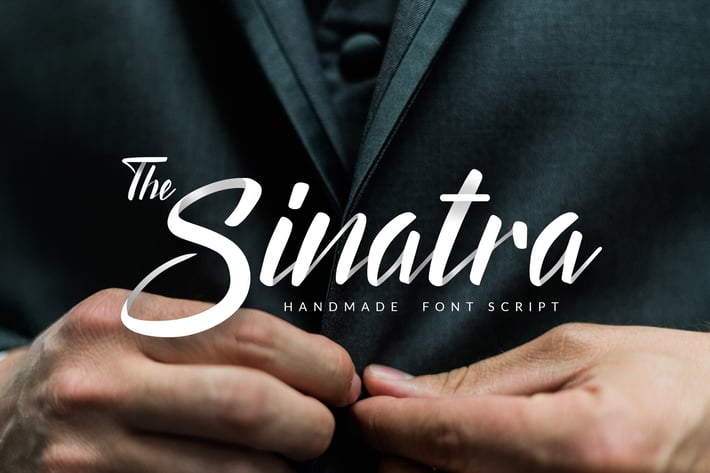
The Sinatra - Handmade Font
We Provide You one of the best Hand Written Script. Best match for logos, header, Titles, Prints & other Creative process possibilities.
Create a Extraordinary Typography / lettering results by using The Sinatra - Handmade Fonts
+ Clean Results
Create a Extraordinary Typography / lettering results by using The Sinatra - Handmade Fonts
+ Clean Results